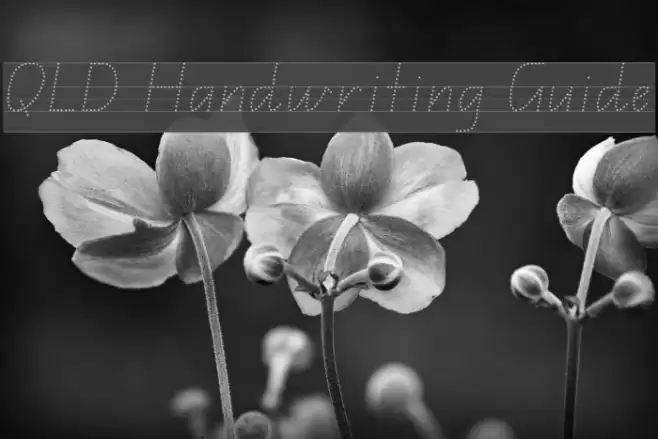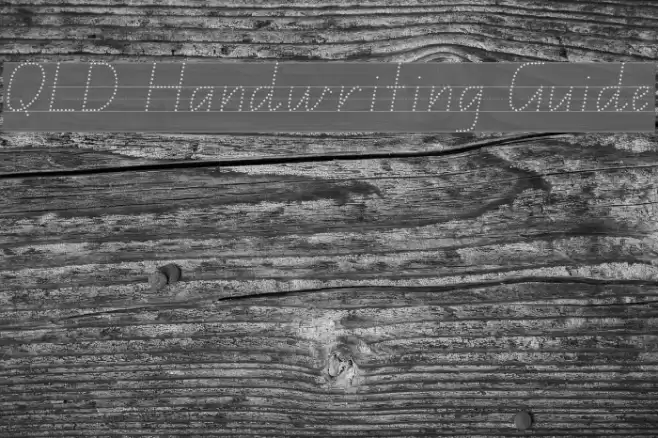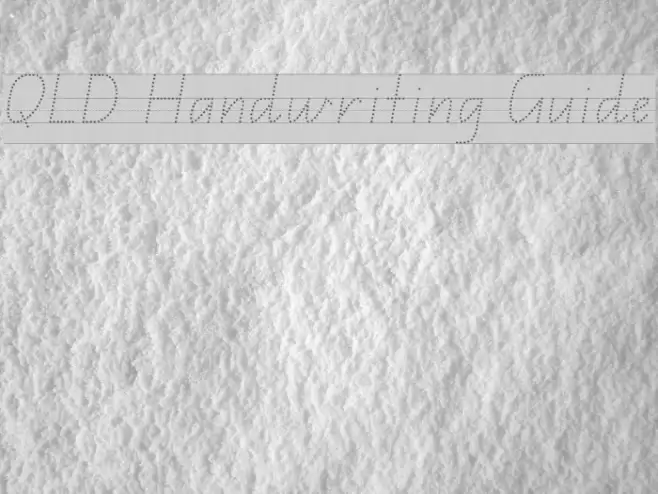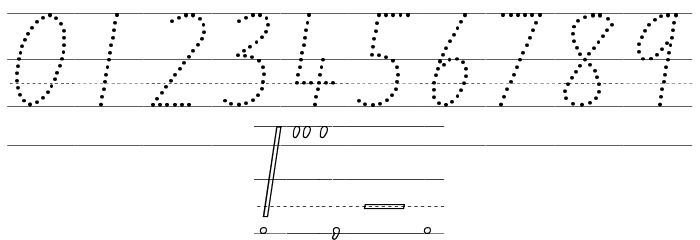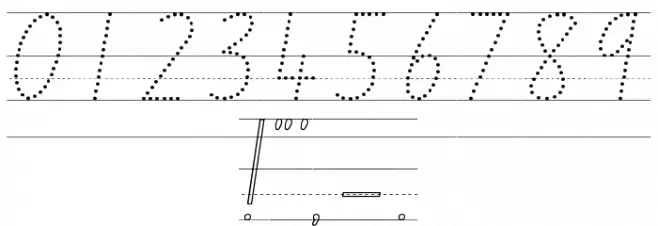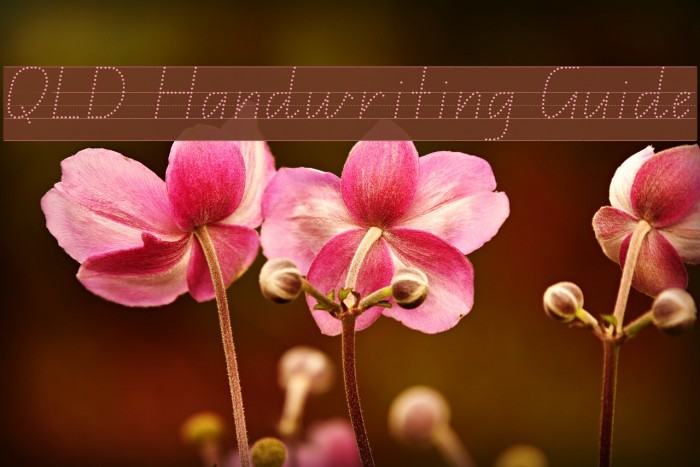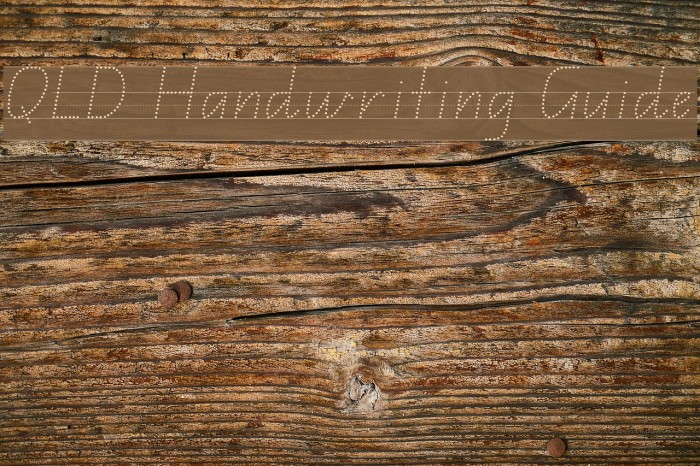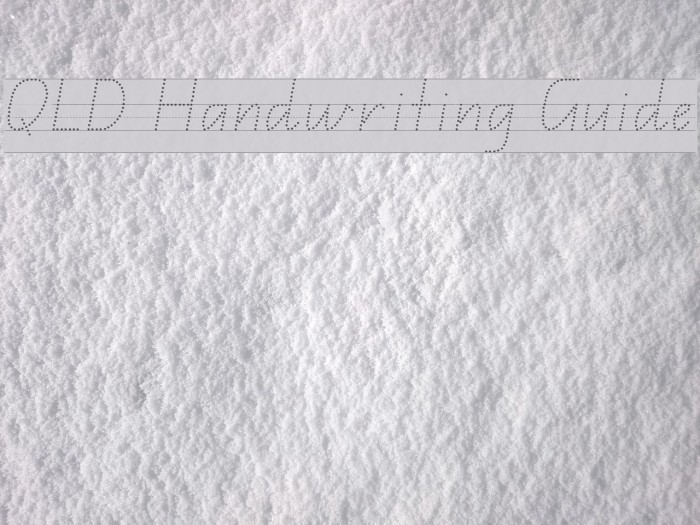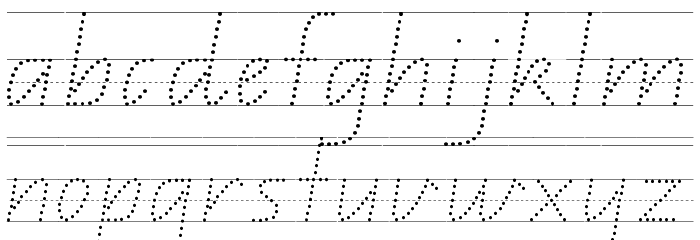
QLD Handwriting Guide Font
QLD Handwriting Guide Description
This font is designed to assist in teaching handwriting, featuring a dotted style that guides learners in forming letters and numbers. Each character is constructed with a series of dots, providing a clear path for tracing. The uppercase and lowercase letters are crafted to demonstrate proper letter formation, while the numbers are similarly structured to aid in numerical writing skills. The overall design is educational, focusing on clarity and ease of use for beginners. The font includes a full set of uppercase and lowercase letters, numbers, and basic punctuation, making it comprehensive for early learning environments.
A dotted educational font for teaching handwriting from Handwritten fonts.
- Proposed Projects: Ideal for educational materials, handwriting practice sheets, and early learning resources.
- Overall Style: Educational
- Use Case: Handwriting practice, educational materials